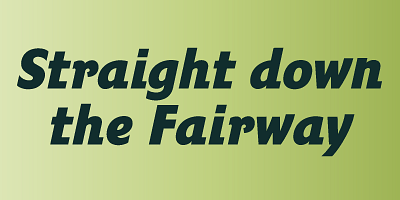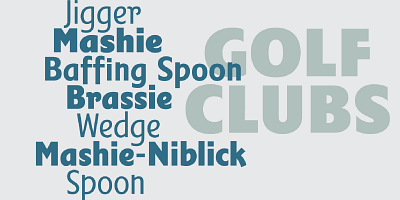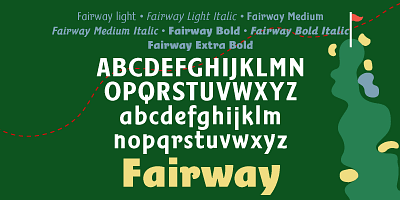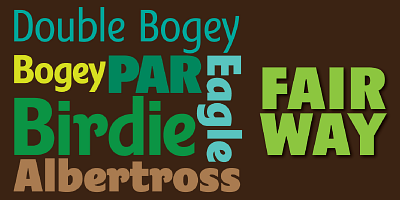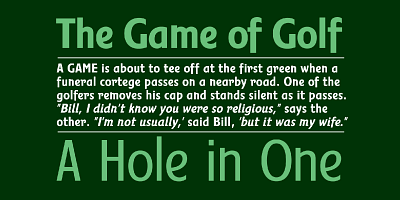
The thinking behind Fairway was to create a relatively conventional soft sans with a certain amount of movement at the top of the x-height line. The face is casual and quirky but can still be used as a text face.